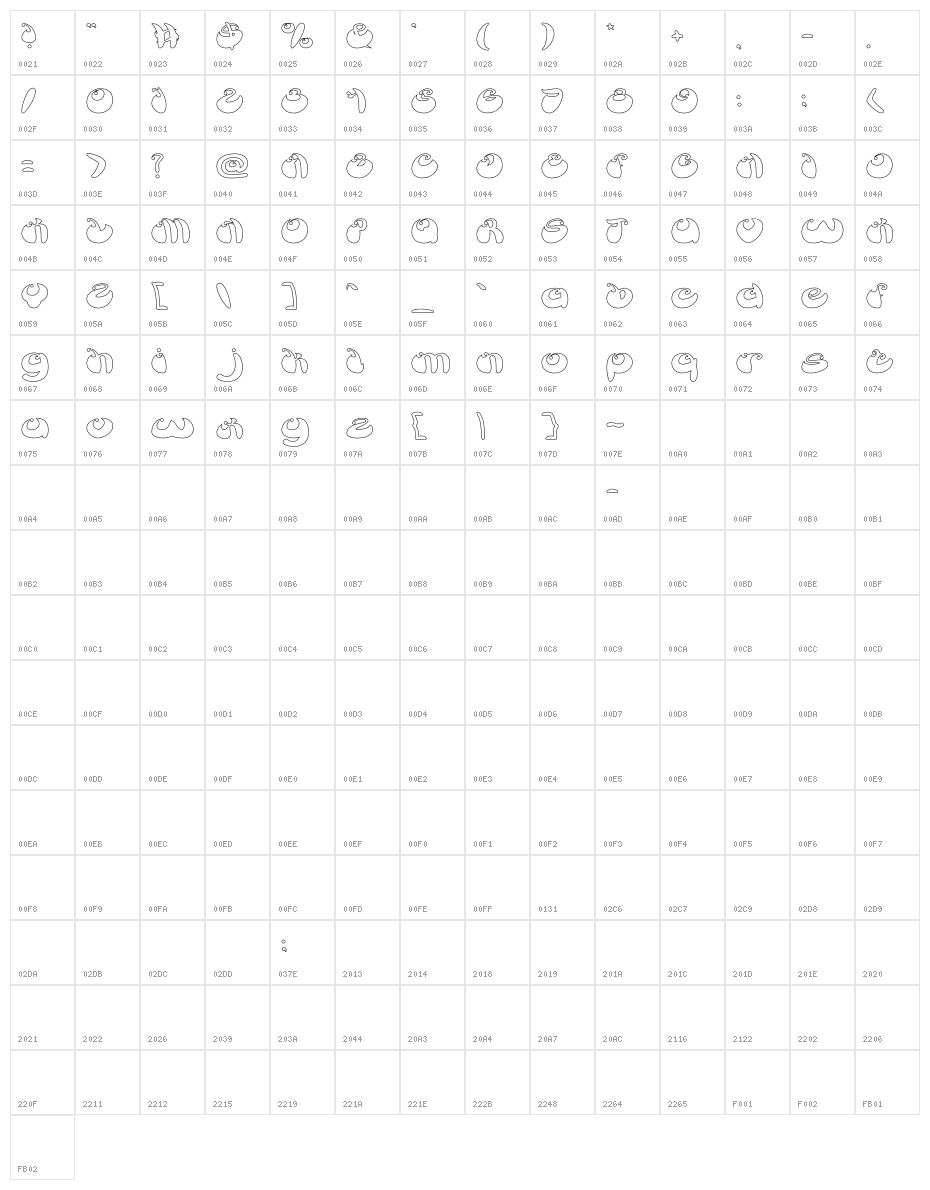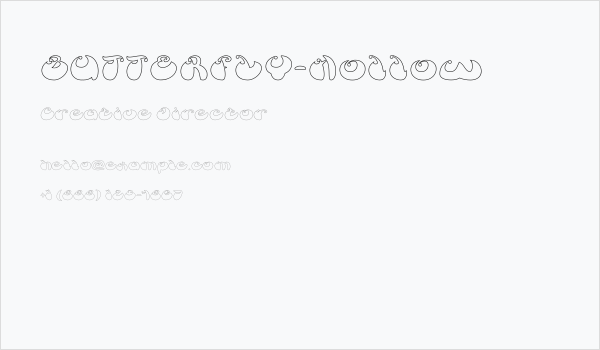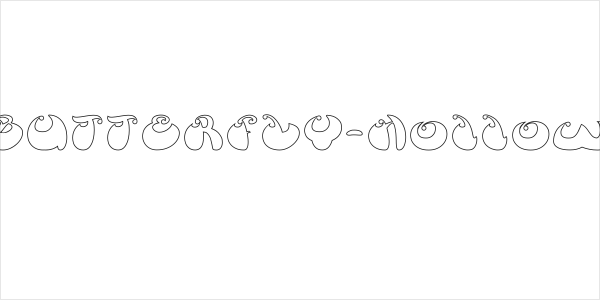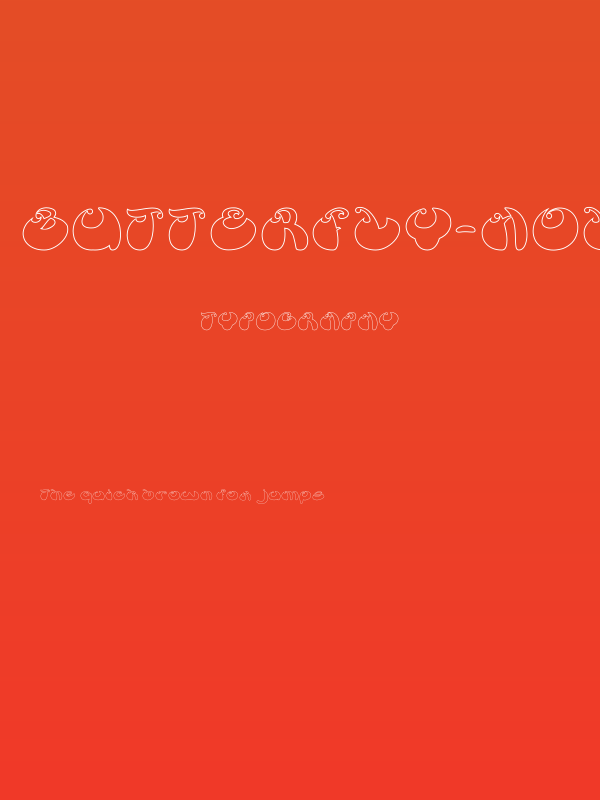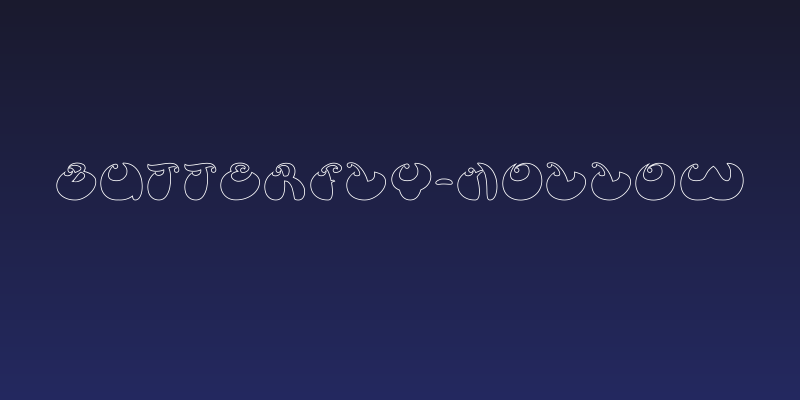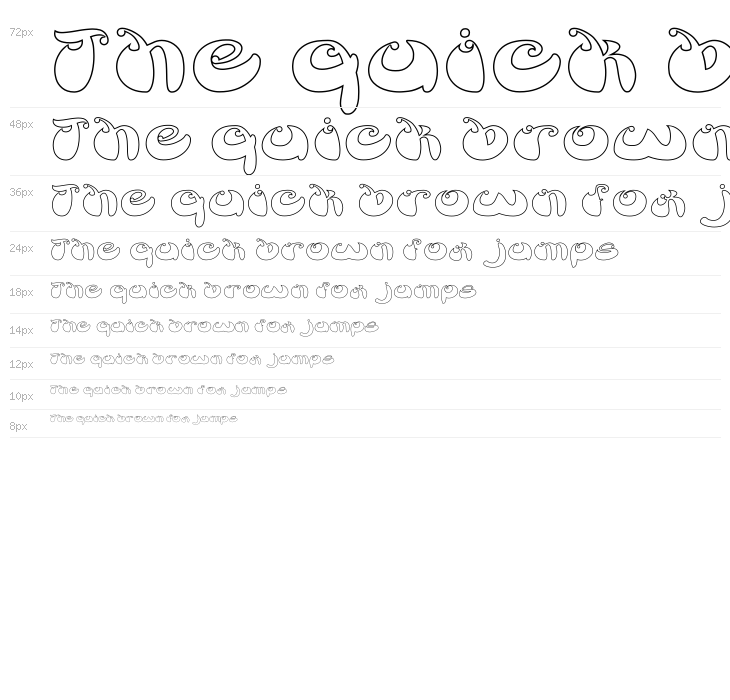
BUTTERFLY-Hollow Font
BUTTERFLY-Hollow Description
This font features a whimsical and playful design, characterized by its hollow, bubble-like letters. Each character is outlined with a consistent stroke, creating a sense of lightness and airiness. The uppercase and lowercase letters maintain a uniform style, with rounded edges and a flowing, organic form. The numbers and special characters follow the same playful aesthetic, making the font suitable for creative and informal projects. Its unique style is eye-catching and adds a fun, decorative touch to any design.